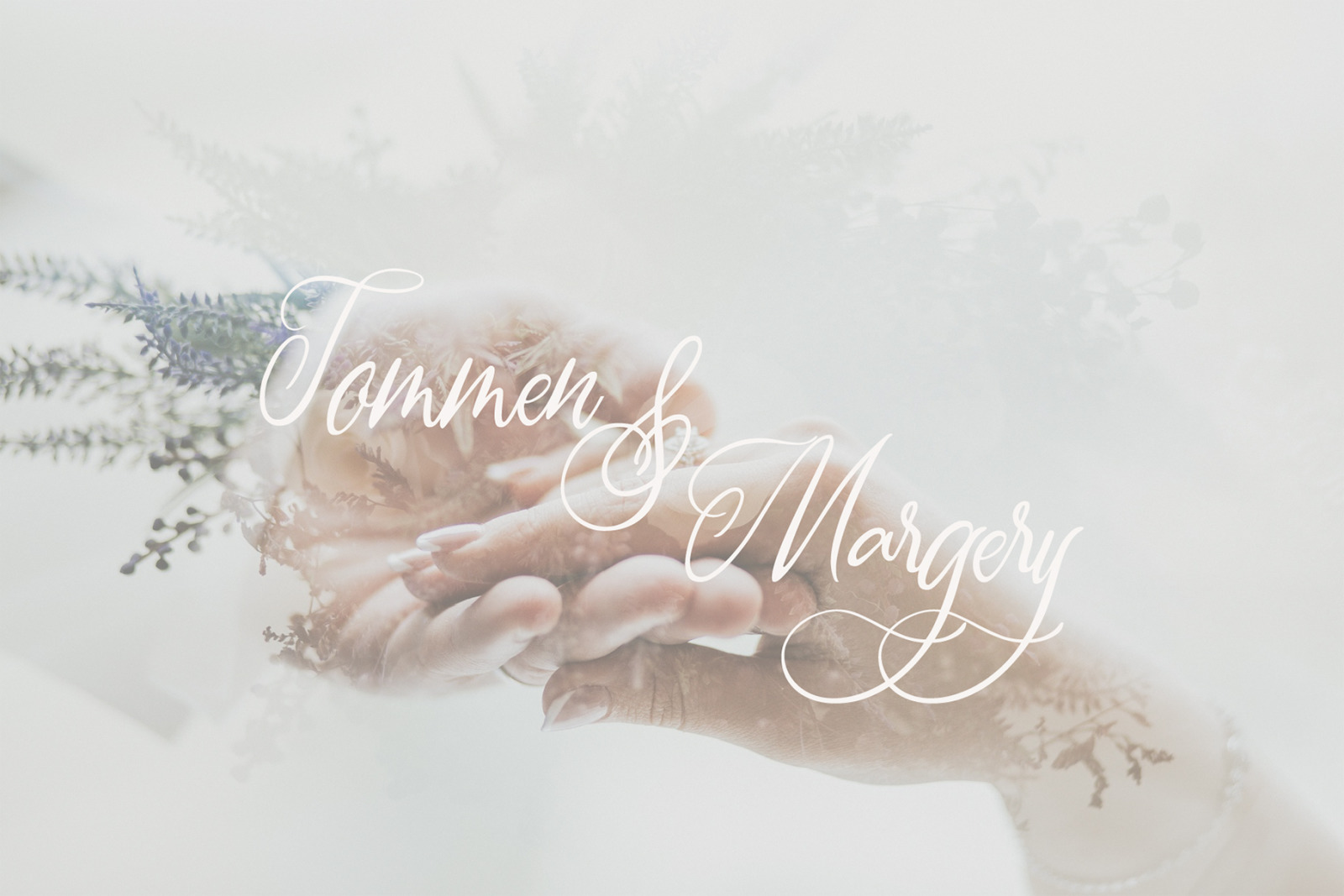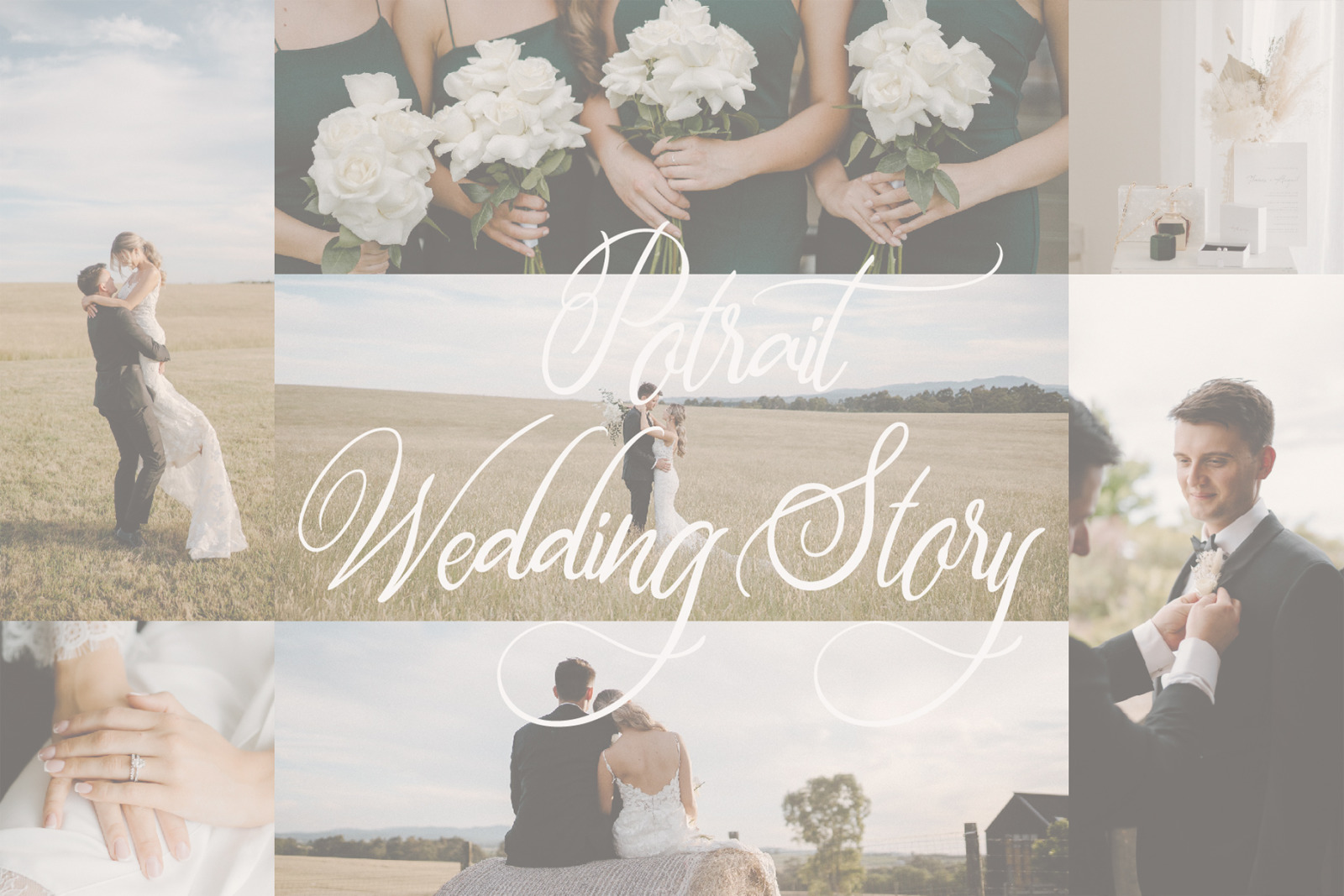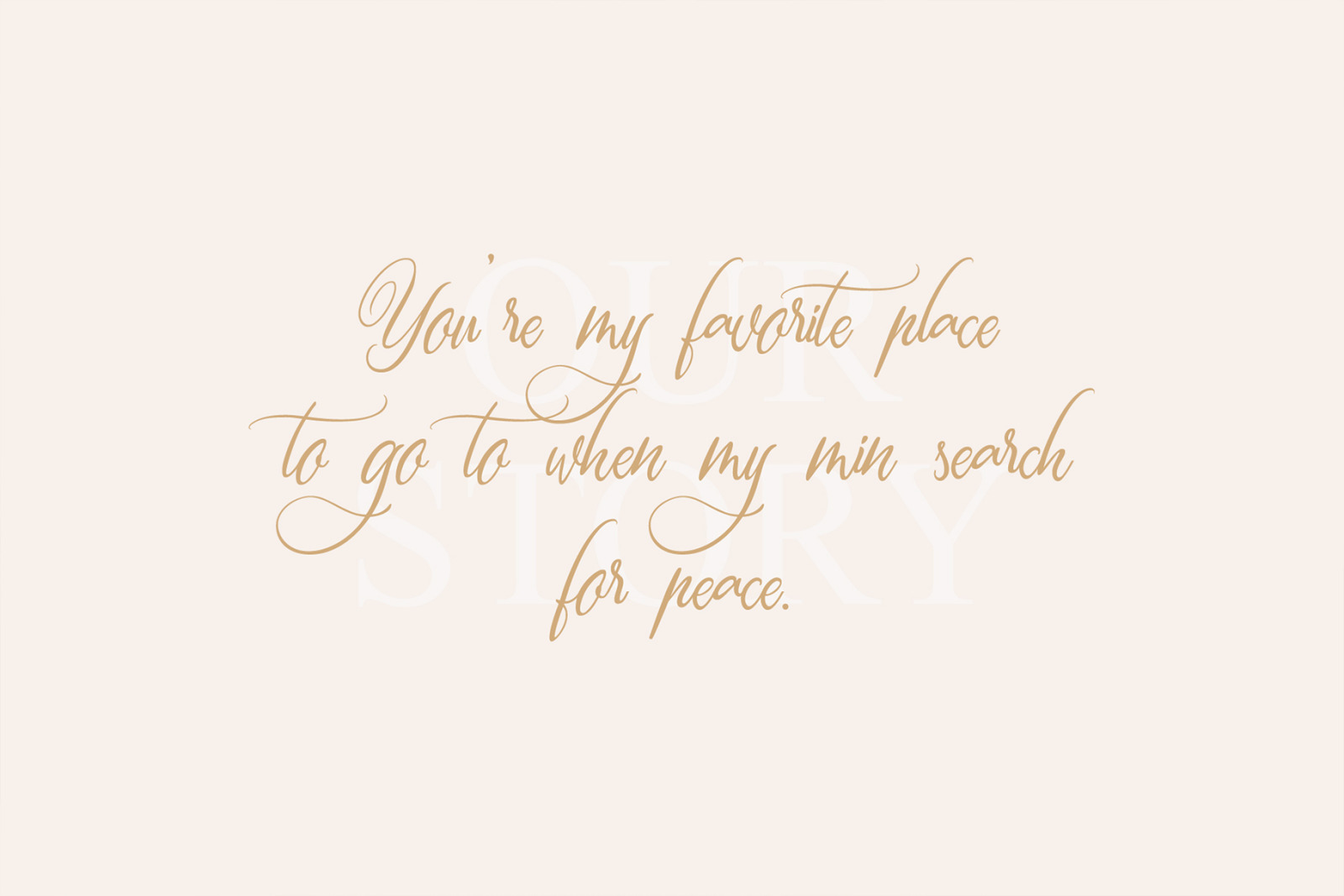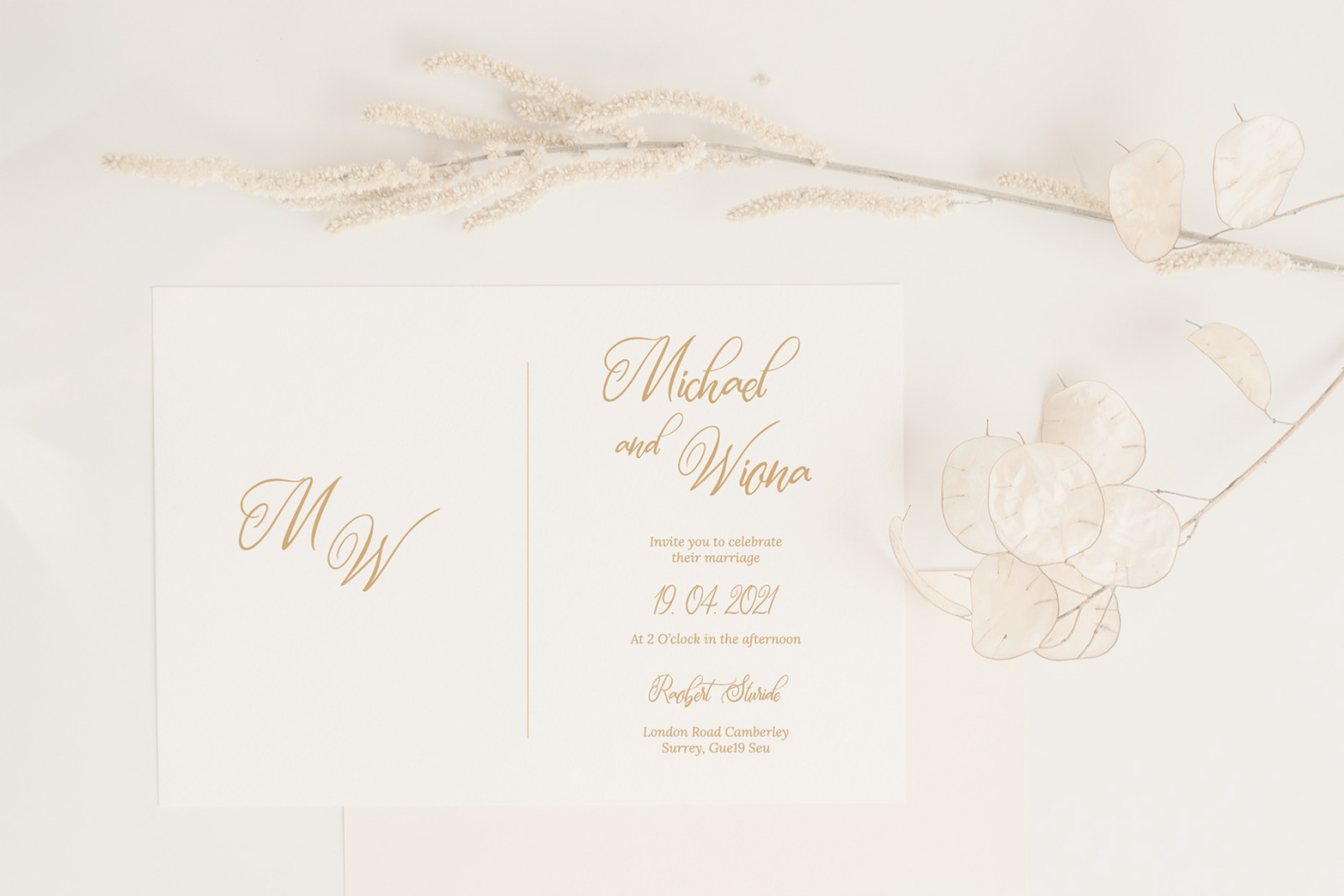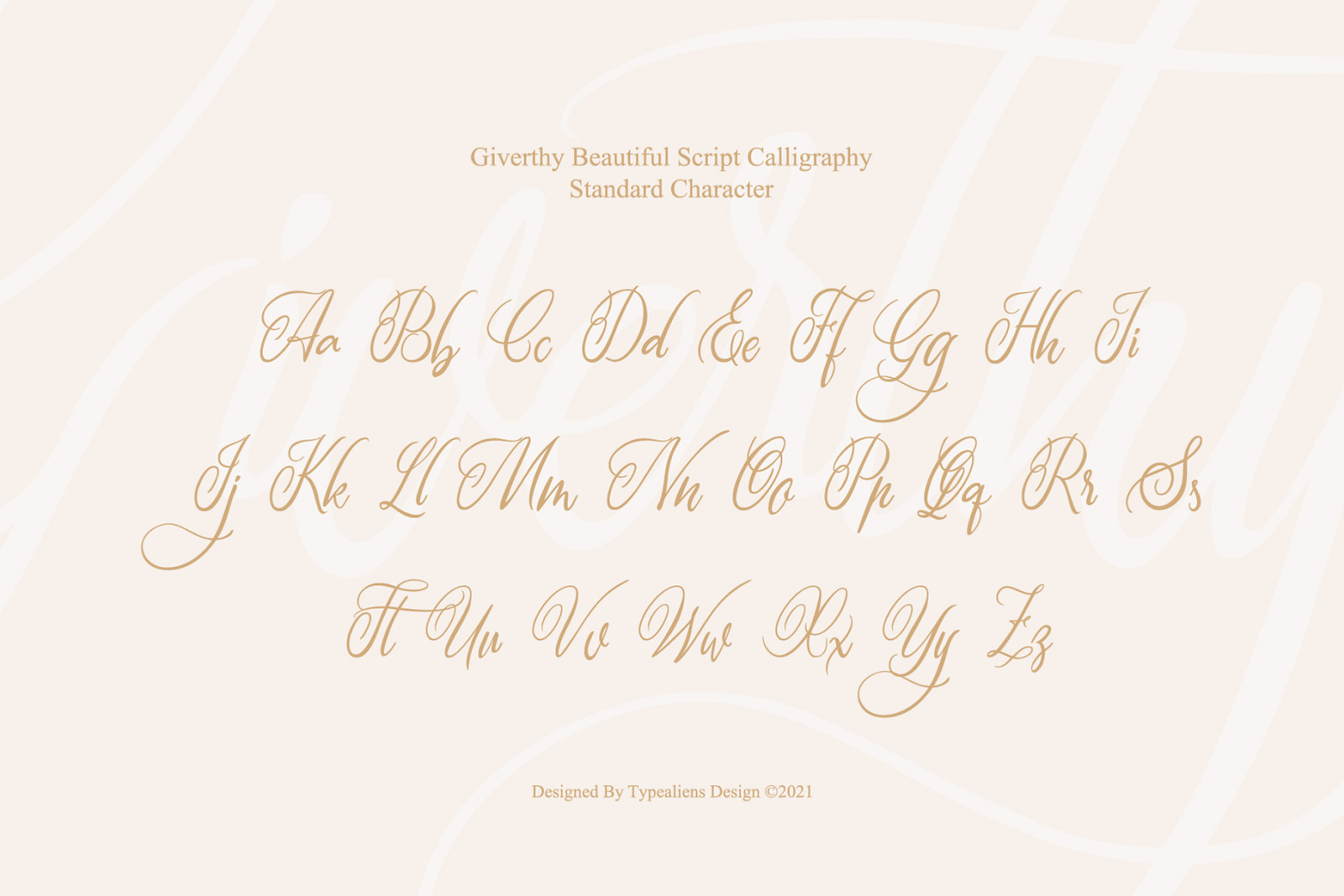
Giverthy Font
GIVERTHY is a modern and beautiful script font. It is suitable for feminine and beautiful designs, such as wedding invitations, love quotes, social media, etc.
In addition, this font is also suitable for logos, logotypes, headlines and writing names.